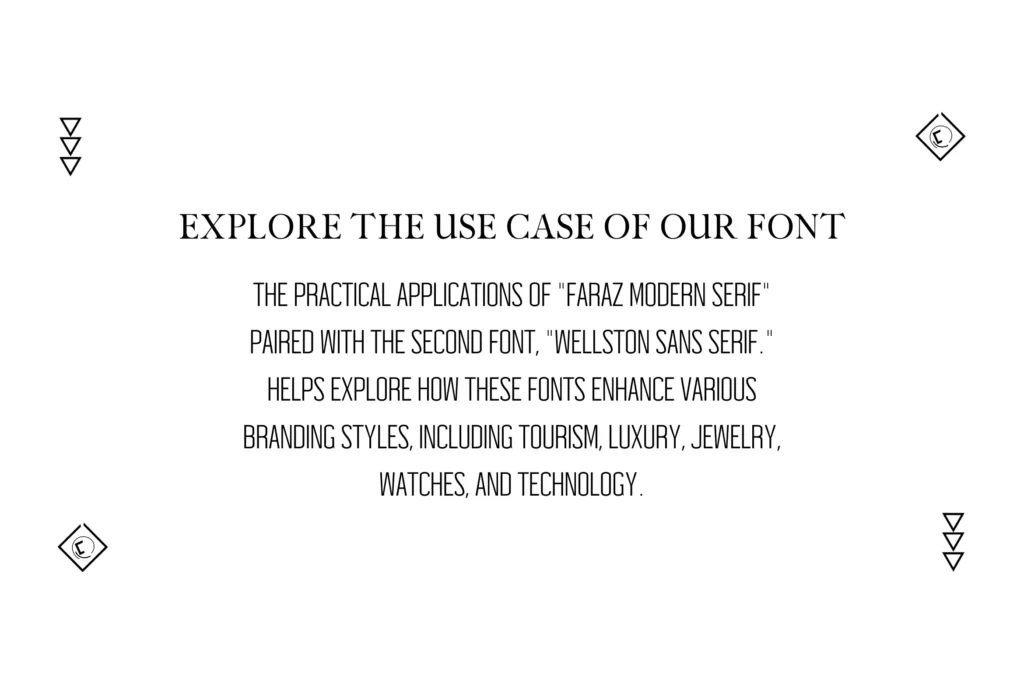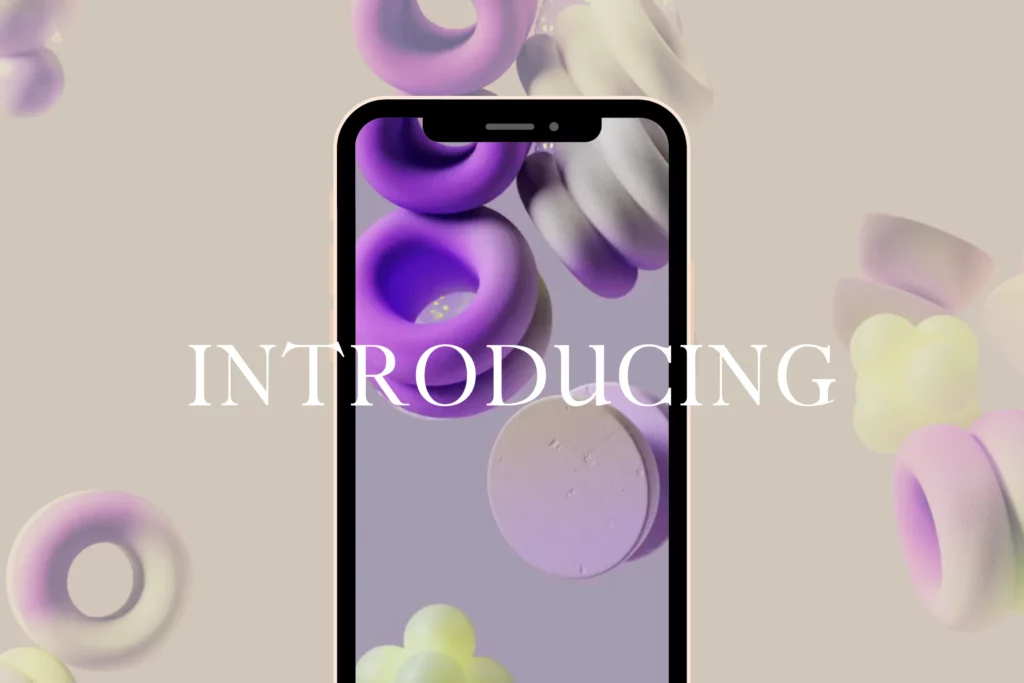
Whether you’re creating a website, creating a logo, or just looking for a fresh and modern font to use in your next project, Faraz Modern Serif Font is the perfect choice. Pairs well with Wellston Font.
Use Case For Improving Branding
- Website Redesign: Incorporate Faraz Modern Serif Font into the main headings and subheadings across your website to refresh the brand image and improve readability.
- Marketing Materials: Use Faraz for your marketing collateral, including flyers, brochures, and email campaigns, to maintain consistency and add a modern touch.
- Social Media Branding: Apply Faraz across all social media platforms in posts and cover images to establish a cohesive and attractive online presence.
- Product Packaging: Utilize Faraz on packaging labels and descriptions to stand out on shelves and convey a sense of elegance and modernity.
- Corporate Presentations: Implement Faraz in PowerPoint or Google Slide presentations, particularly for titles and key points, to keep the audience engaged and convey information.
Features:
Faraz Font offers a variety of features that make it the perfect choice for your next project. With its clean and modern design, this font is sure to catch the eye of your audience. Some of the features of this font include:
✔️ Unique and eye-catching design that is perfect for a variety of projects
✔️ Clean and modern style that is easy to read
Font Case: Uppercase and Number